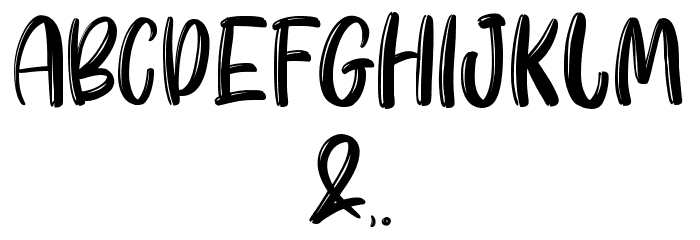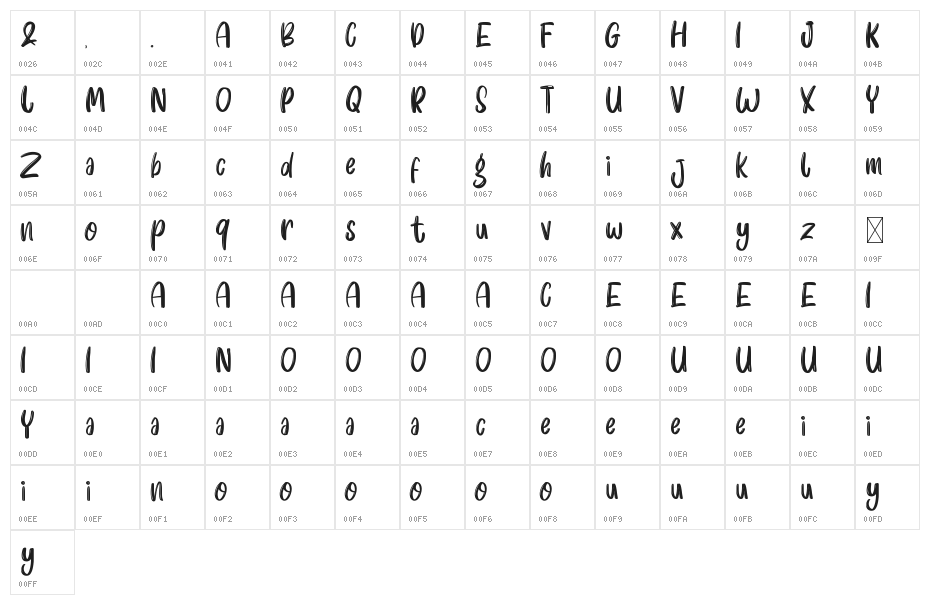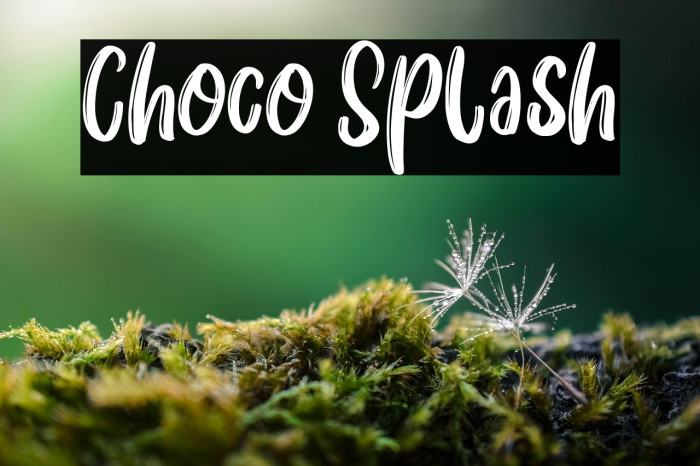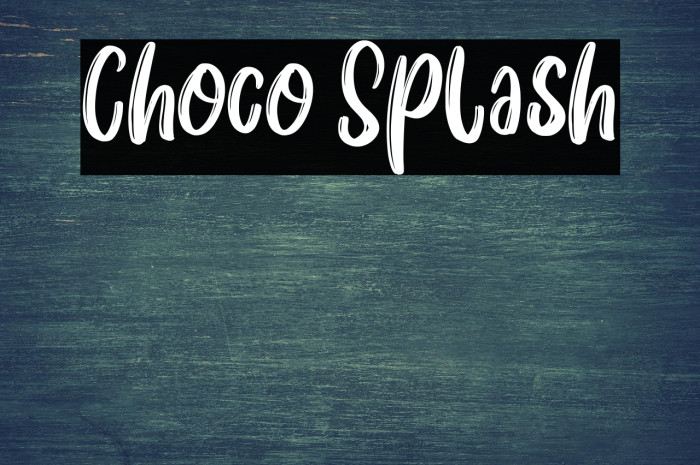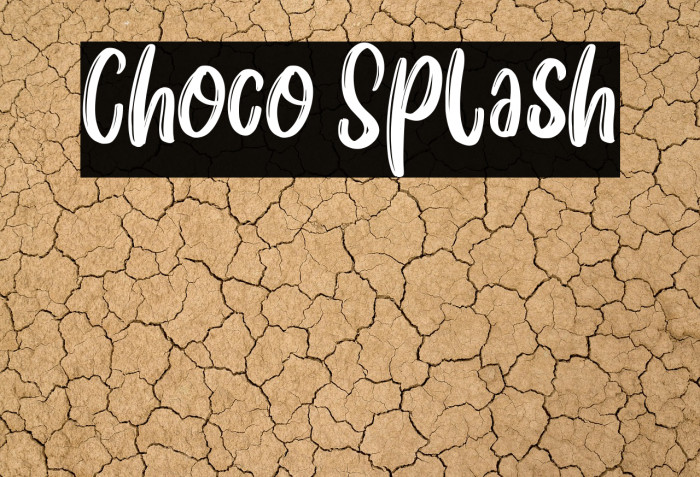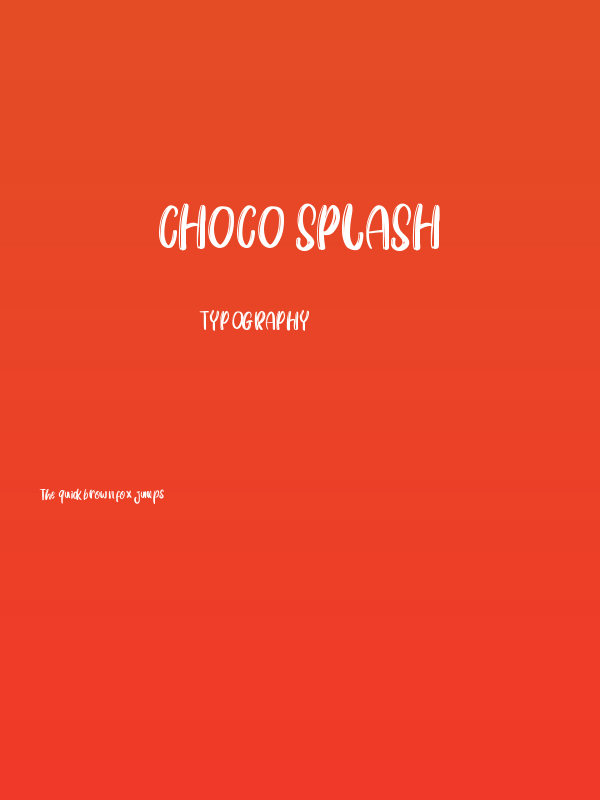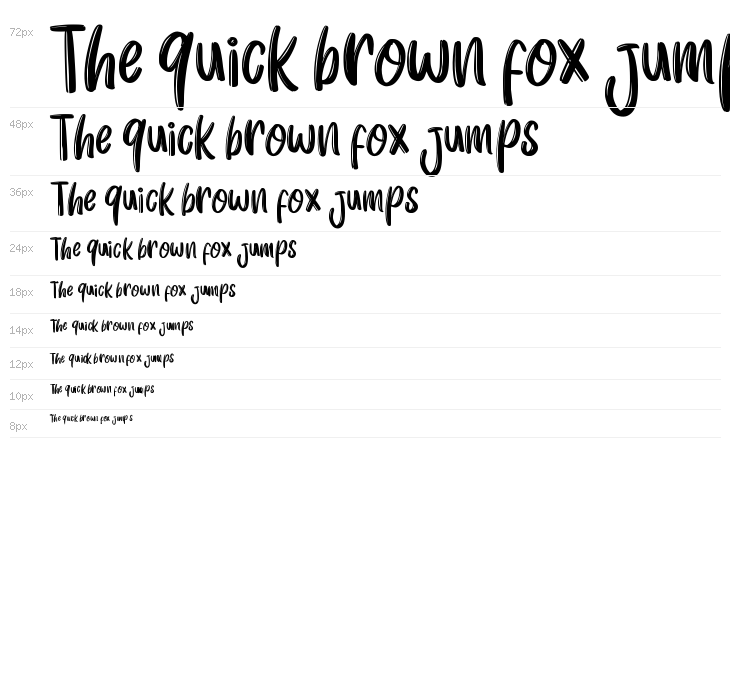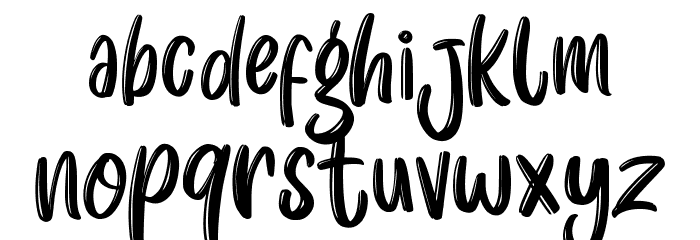
Choco Splash Font
Choco Splash Description
This playful and energetic font features bold, rounded strokes with a hand-drawn aesthetic. The characters are slightly slanted, giving a sense of movement and dynamism. The uppercase and lowercase letters maintain a consistent style, with a whimsical flair that adds personality to any text. The font's thick lines and smooth curves make it highly legible, while its unique style ensures it stands out. Ideal for creative projects, it brings a fun and informal touch to designs.